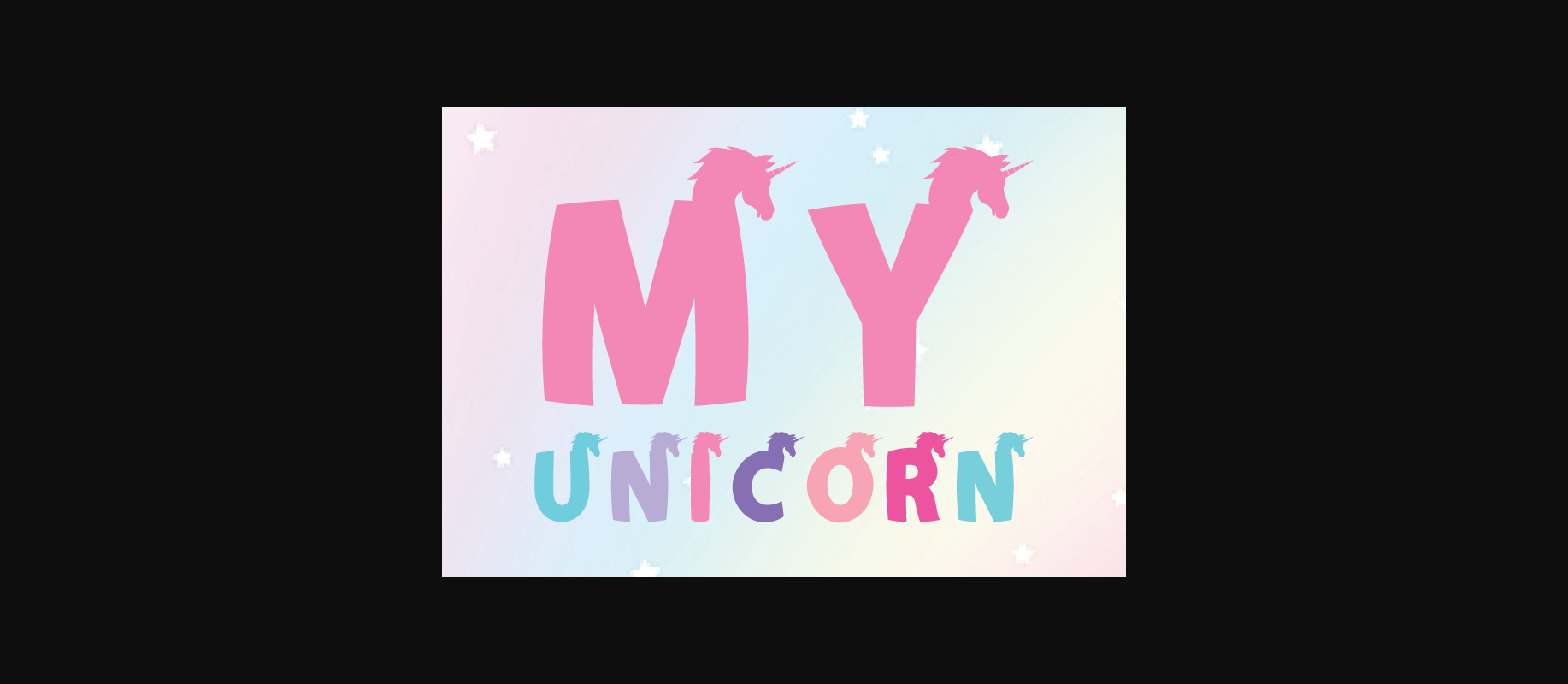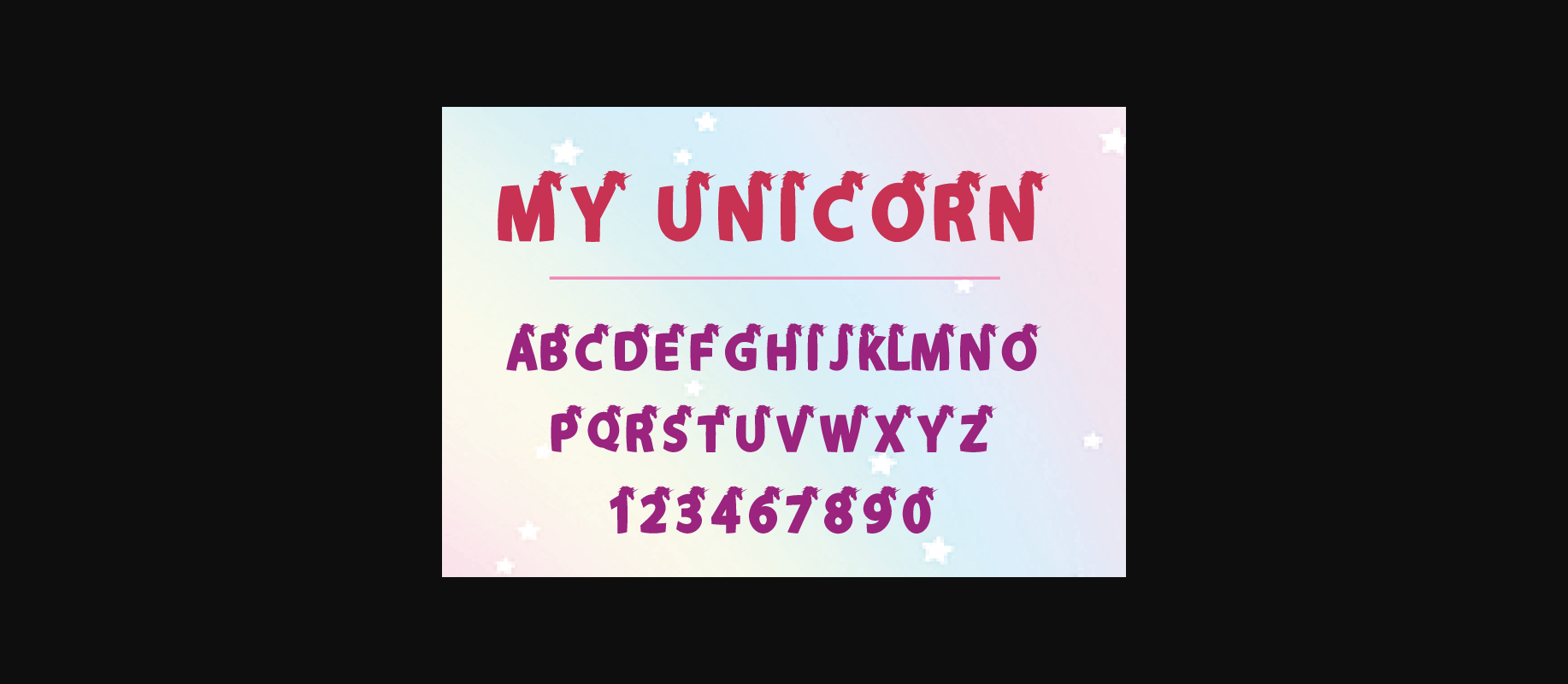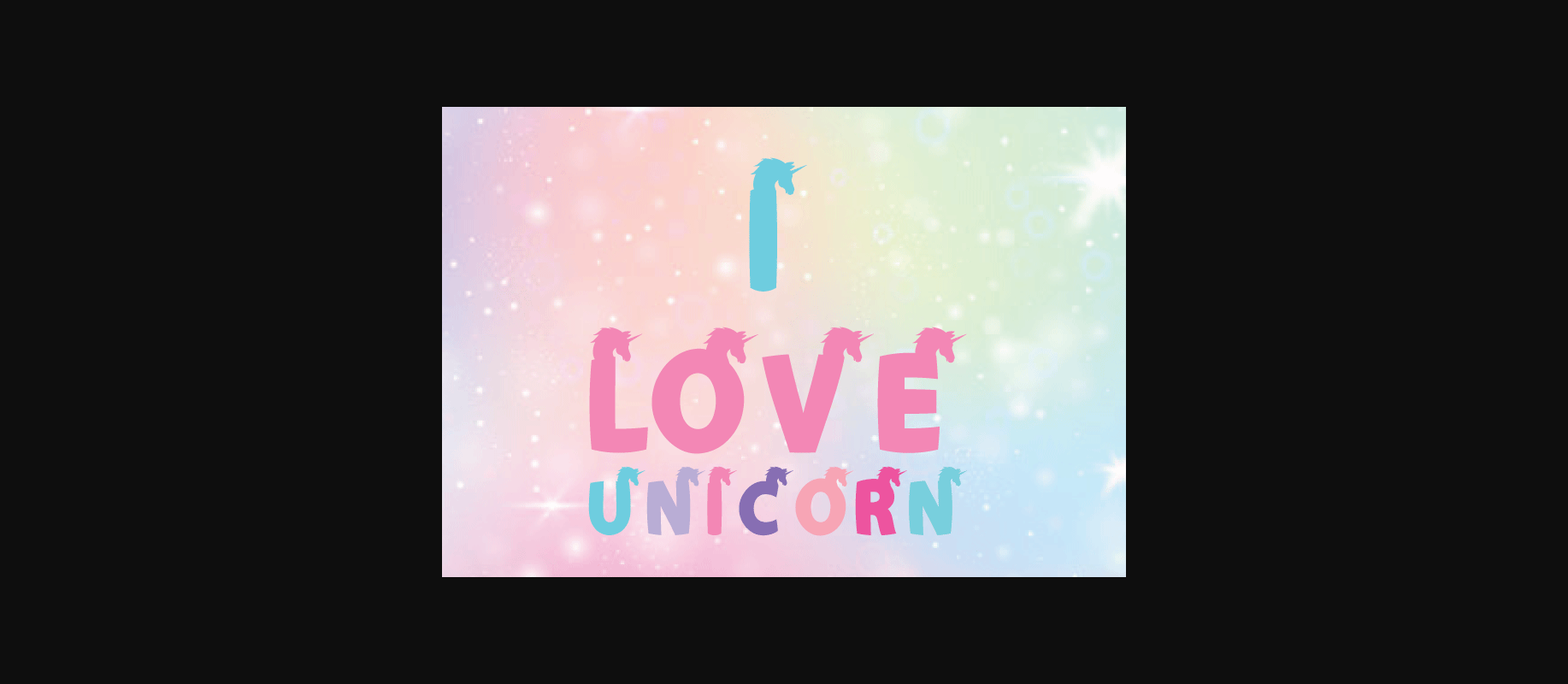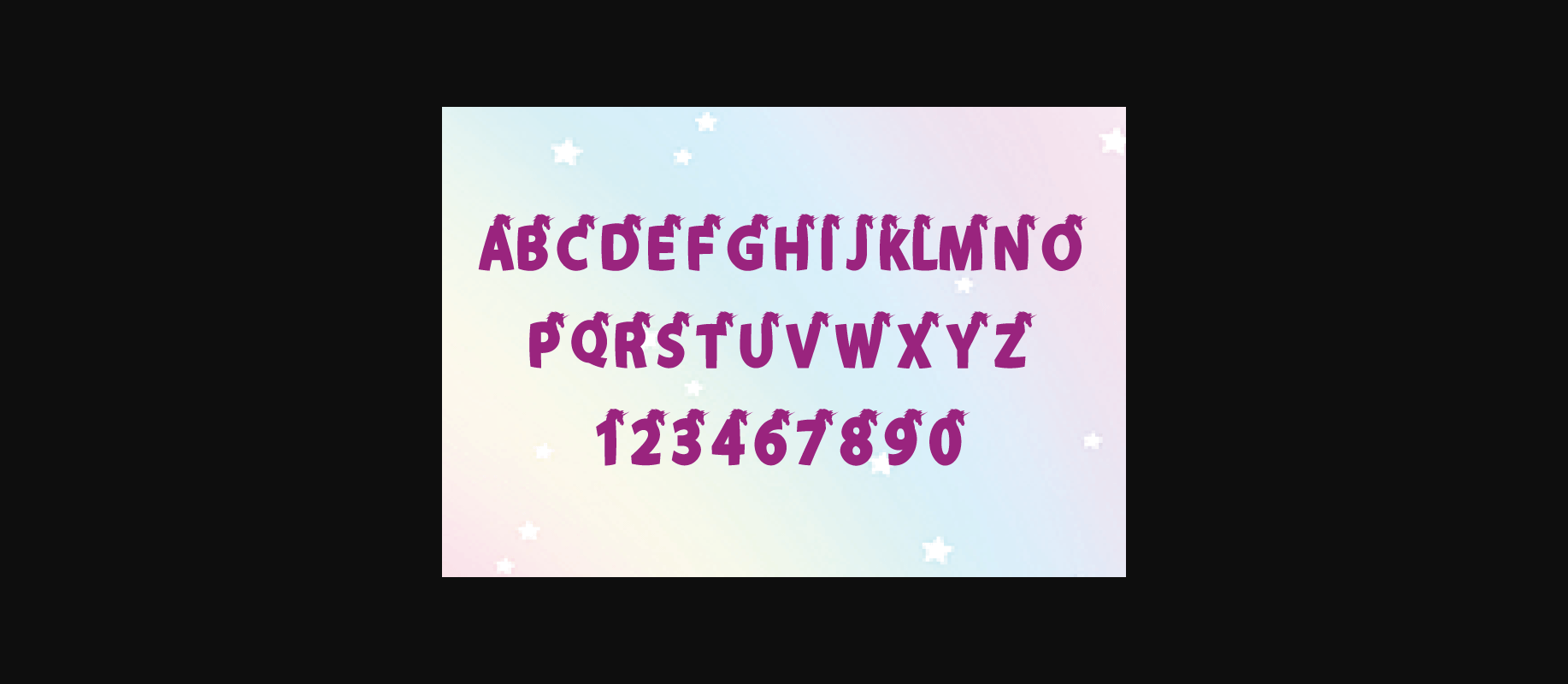
About My Unicorn Font
My Unicorn is a stylish and incredibly unique decorative font. Carefully designed to become an uncommon font, it has the potential to bring each of your creative ideas to life.